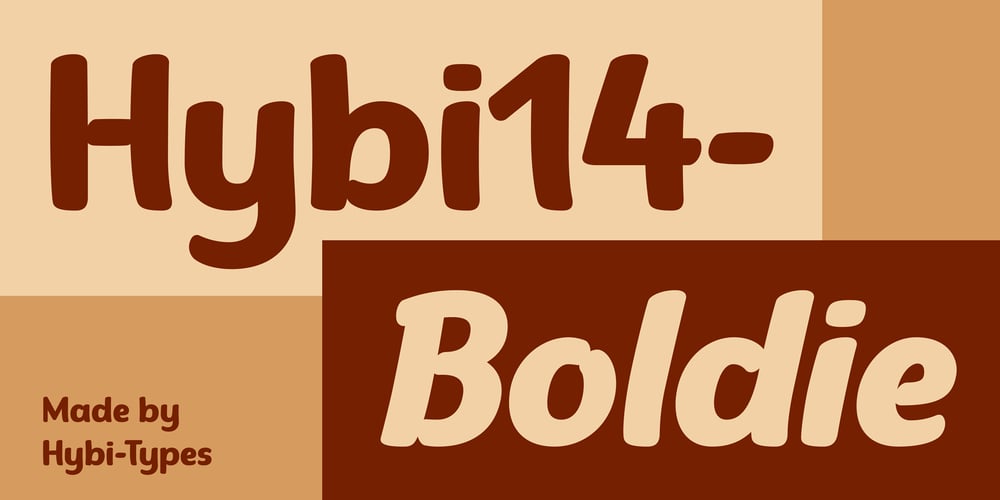
Hybi14 Boldie Font Family was designed by Peter Hübner and published by Hybi-Types. Hybi14 Boldie contains 2 styles and family package options. The Hybi14-Boldie is a bold Script in two styles.It’s lack of excessive details makes it appropriate for all oportunities of headlines, slogans and advertising.It’s friendly and charming character makes it pleasant to look at.The fonts are offering a huge character set for usage in many languages.Also thousands of kerning pairs within each style are obligatory.